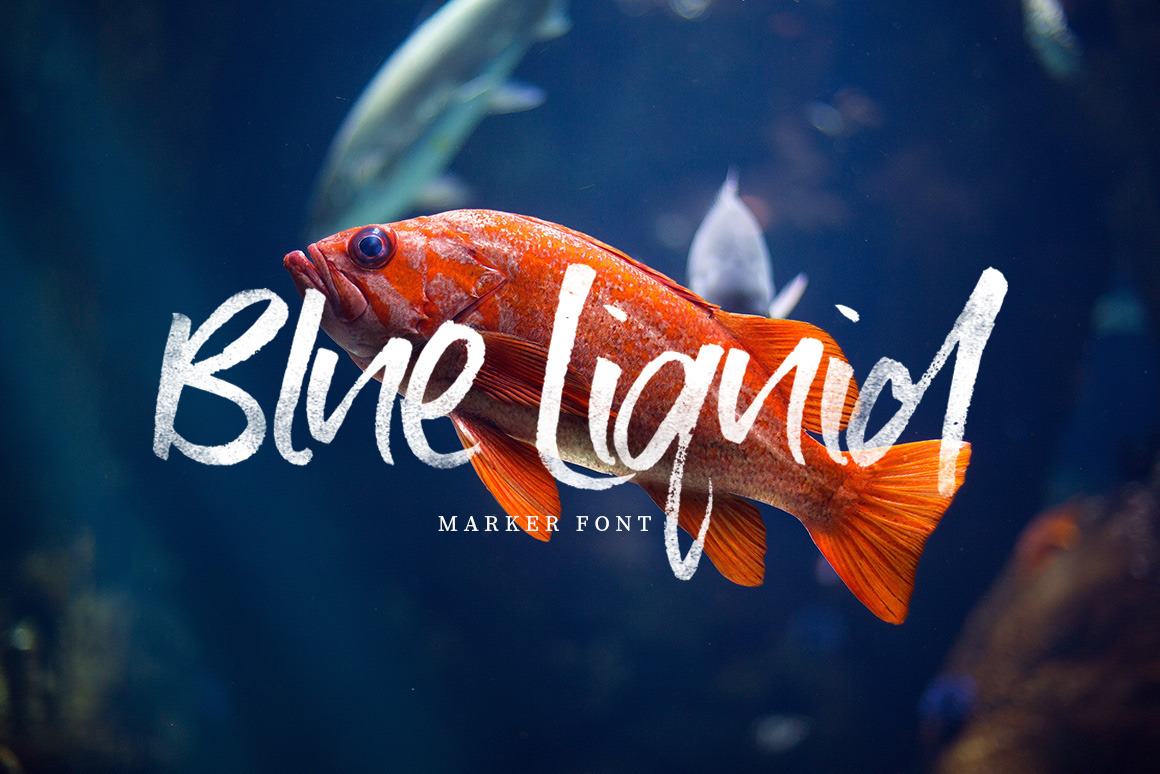
Blue Liquid Marker Font
NEW Introducing Blue Liquid - a brush pen marker font!
Strong and textured, Blue Liquid is the perfect font for branding, invites, logos, quotes, posters, packaging, and so much more!
Blue Liquid comes in Regular, Bold, Light, and Italic.
This font look awesome in lowercase or all caps, kind of like having a font duo!
There is also standard ligatures (double letters) such as aa, bb, ee, ff, ii, ll, mm, oo, pp, rr, ss, tt, and th.
Blue Liquid supports international languages.